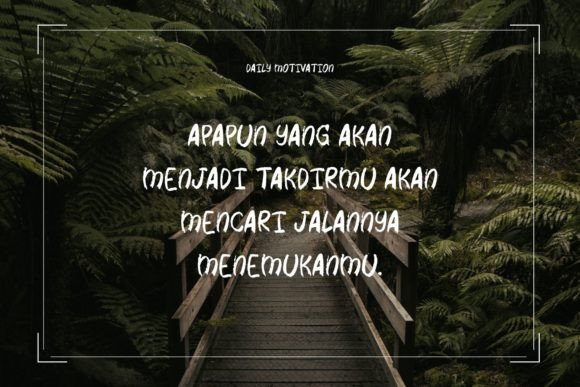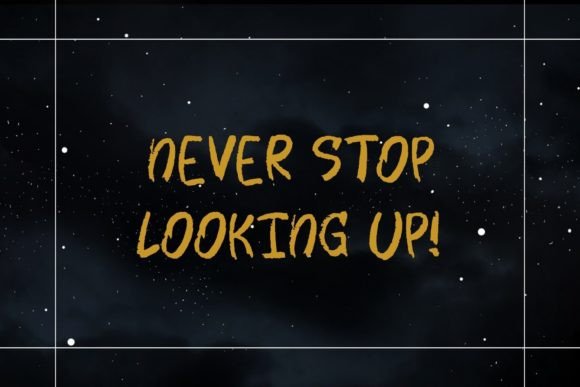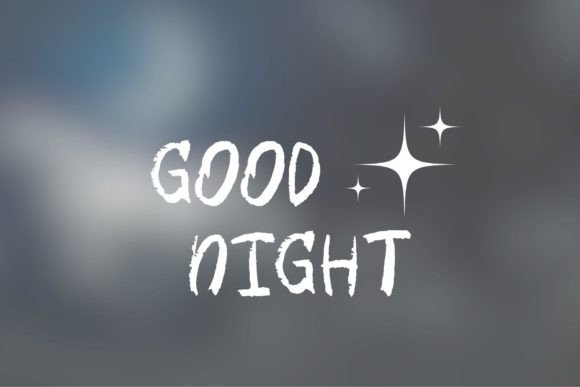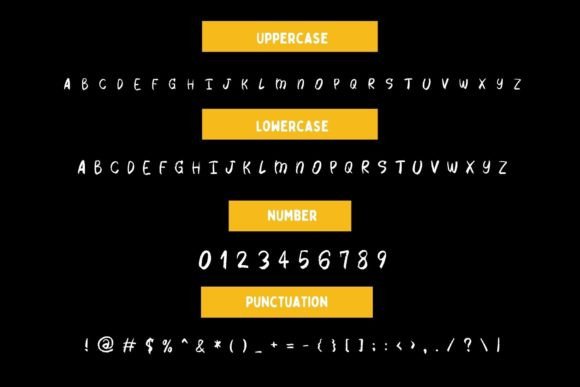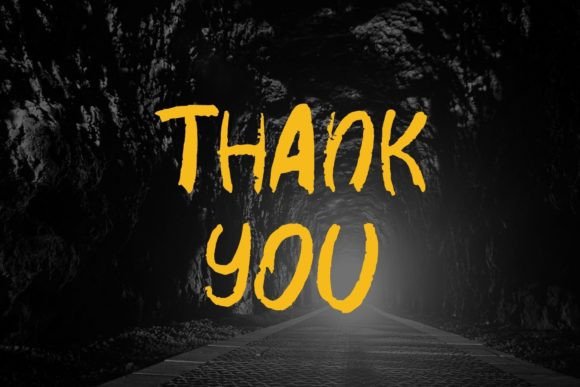
Introduction to Lennox Font
Have you ever stared at a blank page, trying to come up with the perfect font to match your creative vision? You’ve poured your heart and soul into a project, but that one element is missing the magic to bring it all together. That’s where the Lennox Font comes in – a cool handwritten brush font that adds a touch of playfulness and authenticity to any design.
As a designer, you know the importance of finding the right font to elevate your work. And with the Lennox Font, you’ll be spoiled for choice. This versatile font is perfect for a wide range of creative projects, from blog posts and logos to invitations and photo albums. Plus, with its transparent background and high-quality design, it’s a valuable resource for any designer looking to add a personal touch to their work.
Key Features of Lennox Font
- High-quality design resource suitable for creative projects, offering a unique and stylish aesthetic.
- Features a transparent background, allowing for seamless integration into various design elements and backgrounds.
- Includes multiple font styles and weights, providing designers with a range of options for creative expression.
- Designed with high resolution (300 DPI) for optimal clarity and legibility, making it suitable for print and digital applications.
- Perfect for designers looking for a free, high-quality font to enhance their creative projects, from logos and branding to digital interfaces and graphics.
- Supports a wide range of languages, making it a versatile design resource for international projects and clients.
Honest Review: Lennox Font
I recently had the chance to work with the Lennox Font in a creative project, and I must say it’s been a game-changer. This free download has been a fantastic addition to my design resources.
- High quality typography that stands out in any design
- Translucent background options for added depth and dimension
- Easy to use and customize for any creative project
- Wide range of styles and weights to suit various design needs
- ⚠️ Limited compatibility with certain design software
- ⚠️ Not ideal for designs requiring bold, thick font styles
Overall, I’m thoroughly impressed with the Lennox Font and would highly recommend it to designers looking for a reliable, high-quality design resource. Its versatility and ease of use make it perfect for a wide range of creative projects.
Tips for Getting the Most Out of Lennox Font
Experiment with different font sizes and styles to create a visually appealing design. Use Lennox Font in conjunction with other high-quality design resources to elevate your creative project.
Lennox Font is ideal for a variety of creative projects, including branding, marketing materials, and web design. Its high-quality design and transparent background make it a versatile and effective design resource.